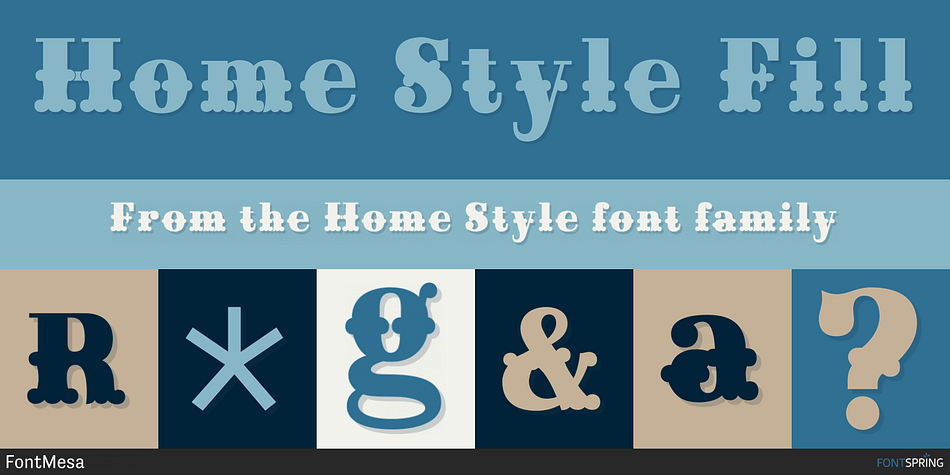
Home Style Fill
Home Style is a western font family. This typeface has three styles and was published by FontMesa.
Home Style is a revival of a very old font previously thought to have been designed by Joseph Gillé in or around the year 1820, however recent evidence from France suggests that an artist by the name of Silvestre from the same time period may be the true designer of this font.
You may have seen this font in the past under the names of Circus, Roma, Madame and Gillé Classic. Originally designed in France, this very decorative font was only available in uppercase including numbers. Today this font has been re-mastered and updated with the addition of a newly designed lowercase set of letters.
Home Style with its diagonal or cast shadow lines breaks away from the original design which has squared off shadows.
If you’re looking for the original version of this font please refer to the FontMesa version named Maison Luxe.
New in 2016 for Home Style is an uppercase German Double S (versal eszett), opentype features including case sensitive forms and old style numerals.